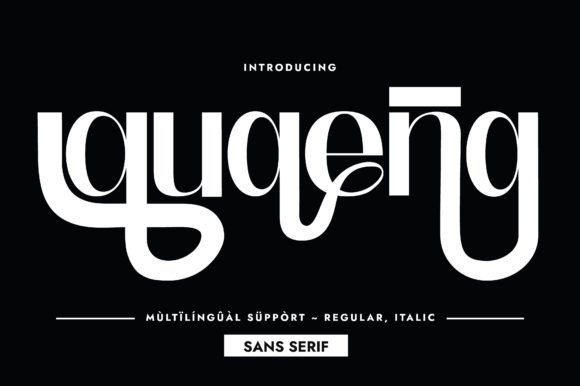
Quaena, Decorative Font for Invitations & Branding
Quaena is a clean, compressed sans‑serif font with minimalist styling and tall, bold glyphs that demand attention. Its geometric simplicity and strong presence make it suitable for modern branding, packaging, editorial design, posters, and digital or print media. As a digital font asset, it fits smoothly into design software, cutting‑machine workflows, or print‑on‑demand pipelines.
- Minimalist and modern — fits a wide range of design styles without overwhelming visuals
- Bold, tall glyphs — good for headings, titles, packaging, and designs that need strong visual presence
- Versatile — usable in digital graphics, print, merchandise, packaging design, and craft‑based projects
| Style / Feel | Minimalist, compressed, bold sans‑serif | Standard sans‑serif — neutral body or headline use | Decorative or stylized display font — may be ornate or thematic | |
| Visual Impact | High — tall, bold glyphs stand out even at large sizes | Medium — plain text readability | Variable — can be striking depending on design but sometimes too stylized for general use | |